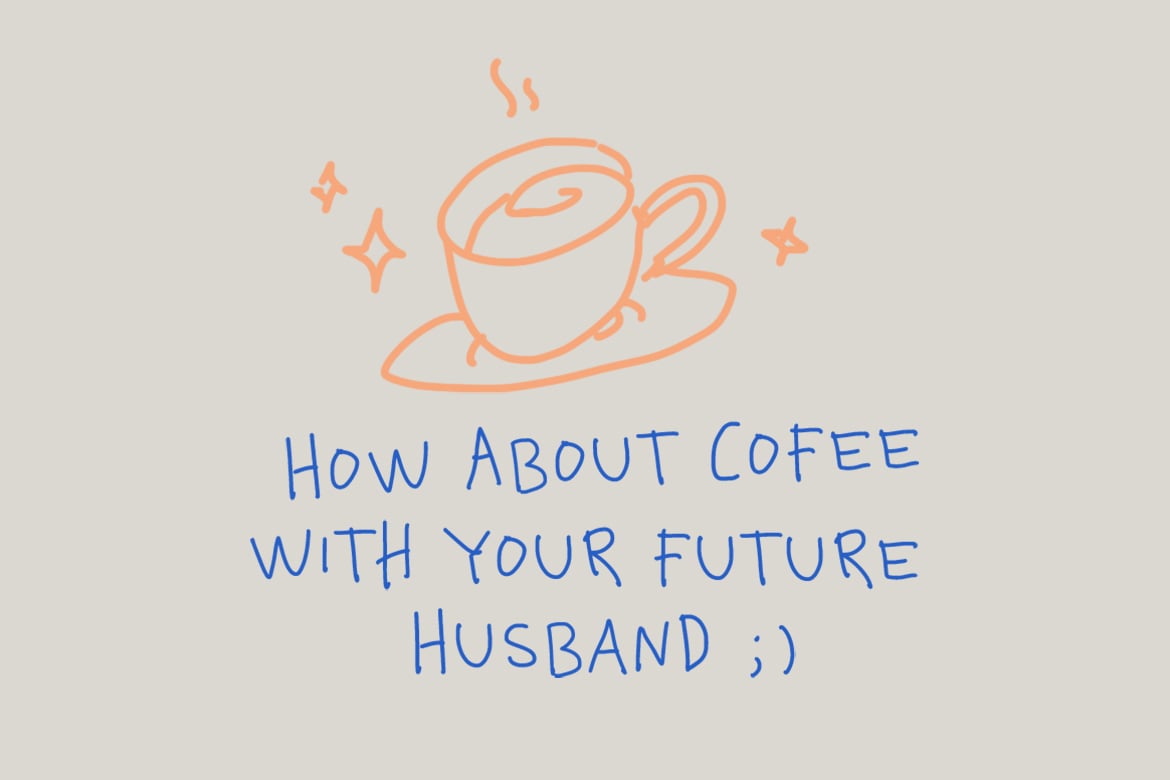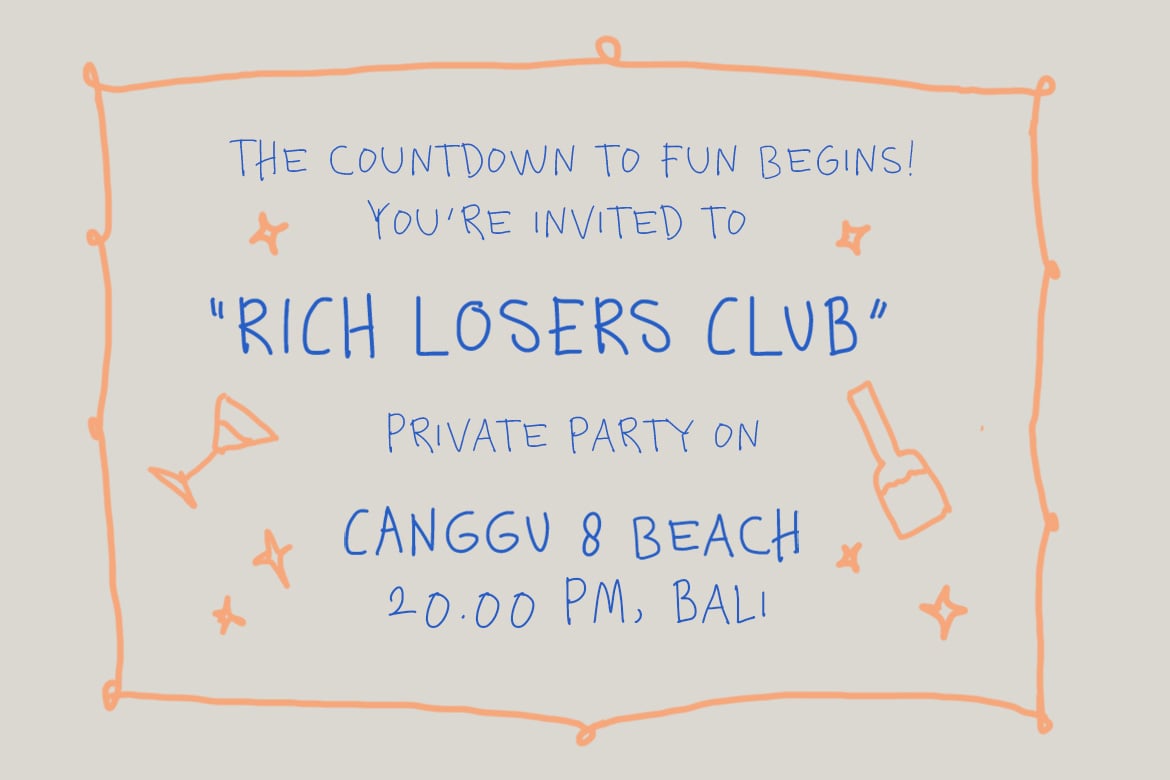
Casual Human Fonts Font is a versatile typeface ideal for various projects, including N/A, logos, branding, posters, blog headers, advertisements. The free version includes a full set of uppercase and lowercase letters, available in OTF format.
Casual Human Fonts Font